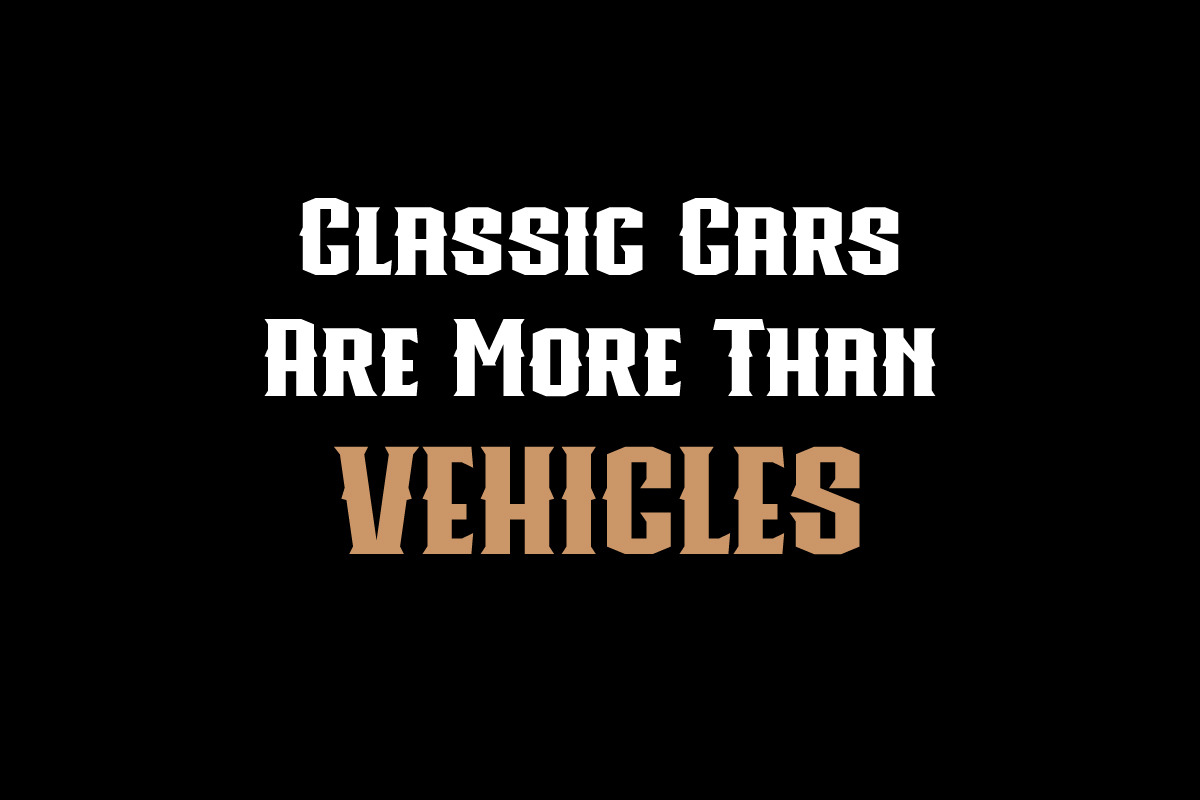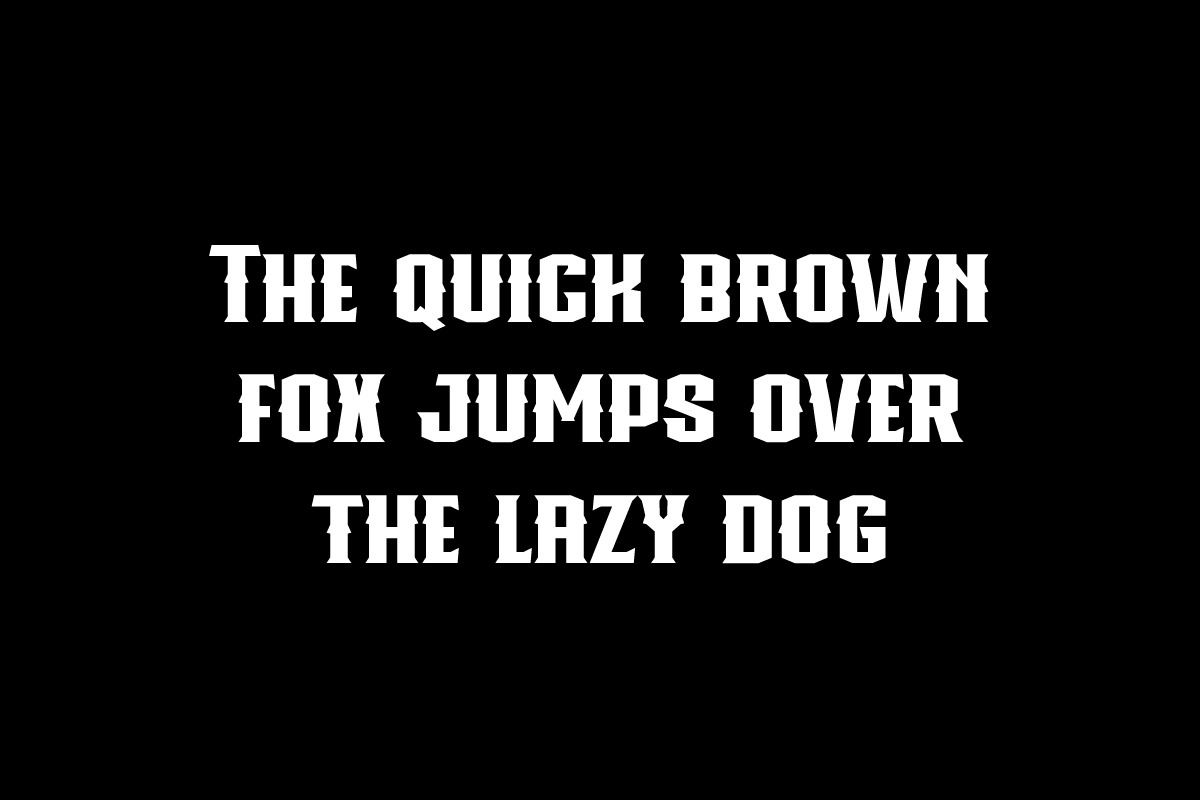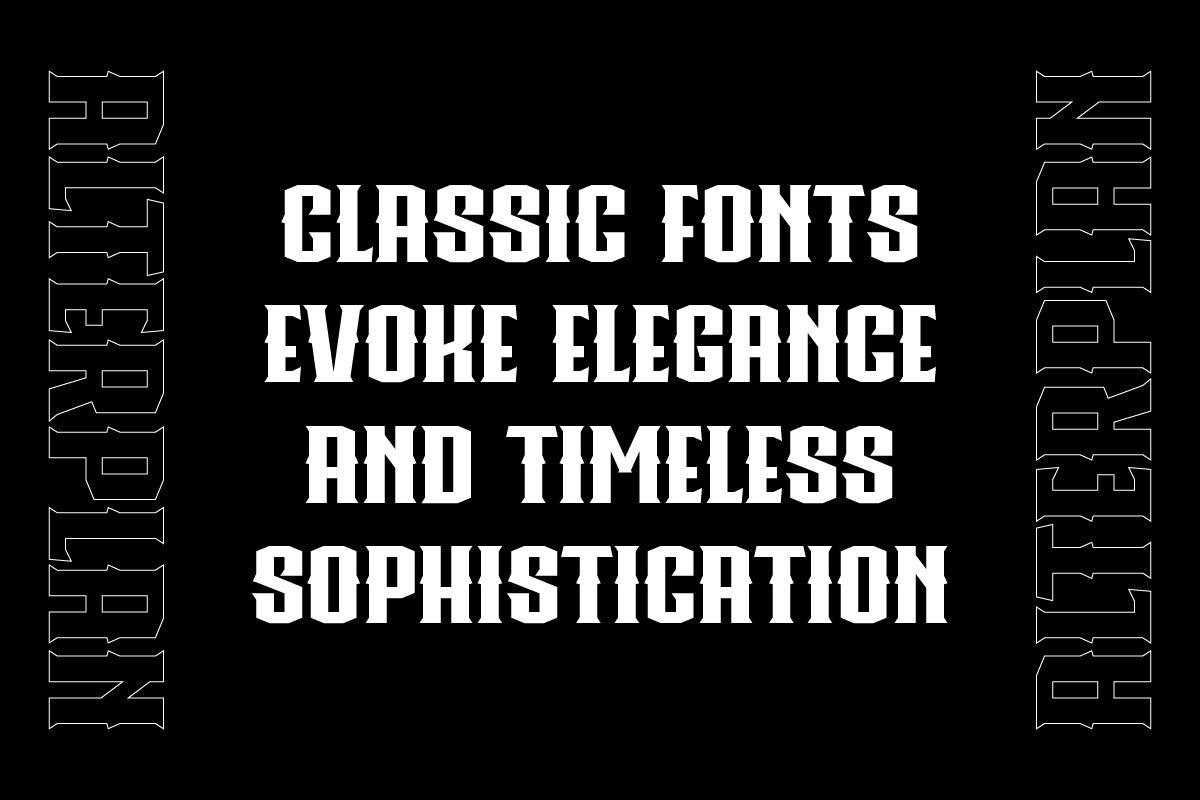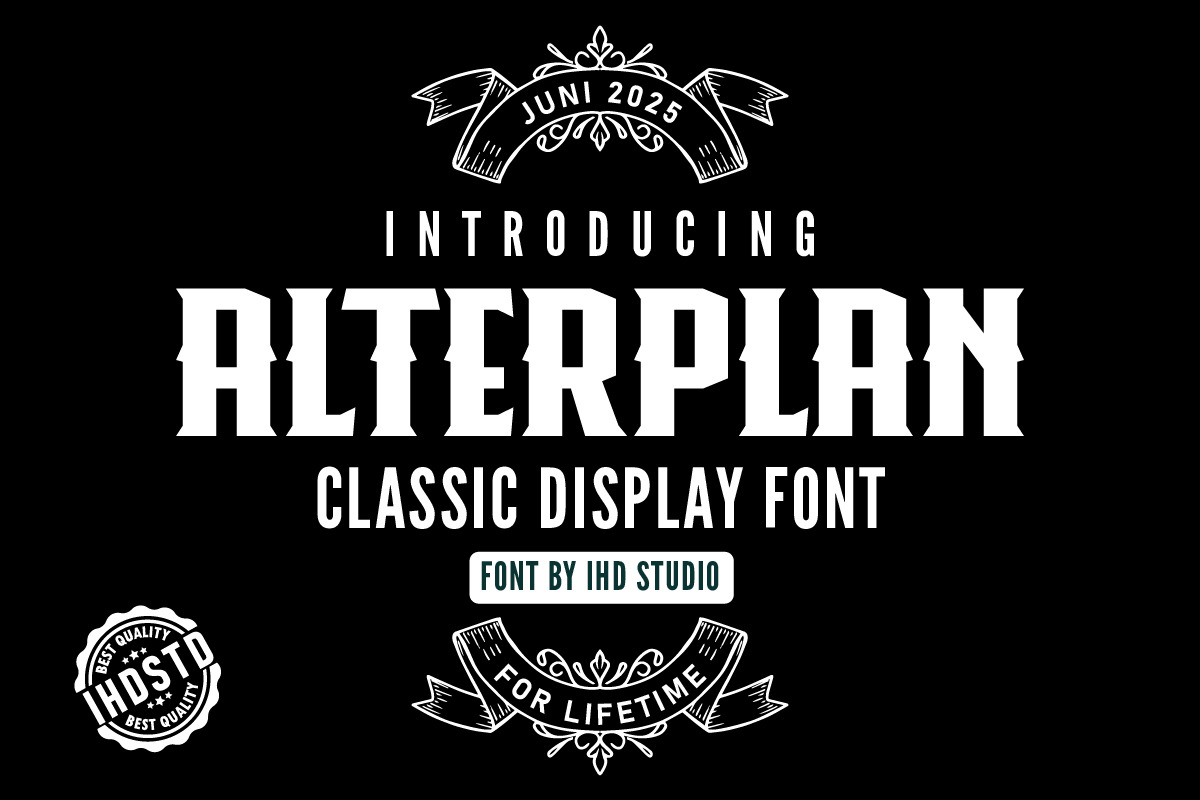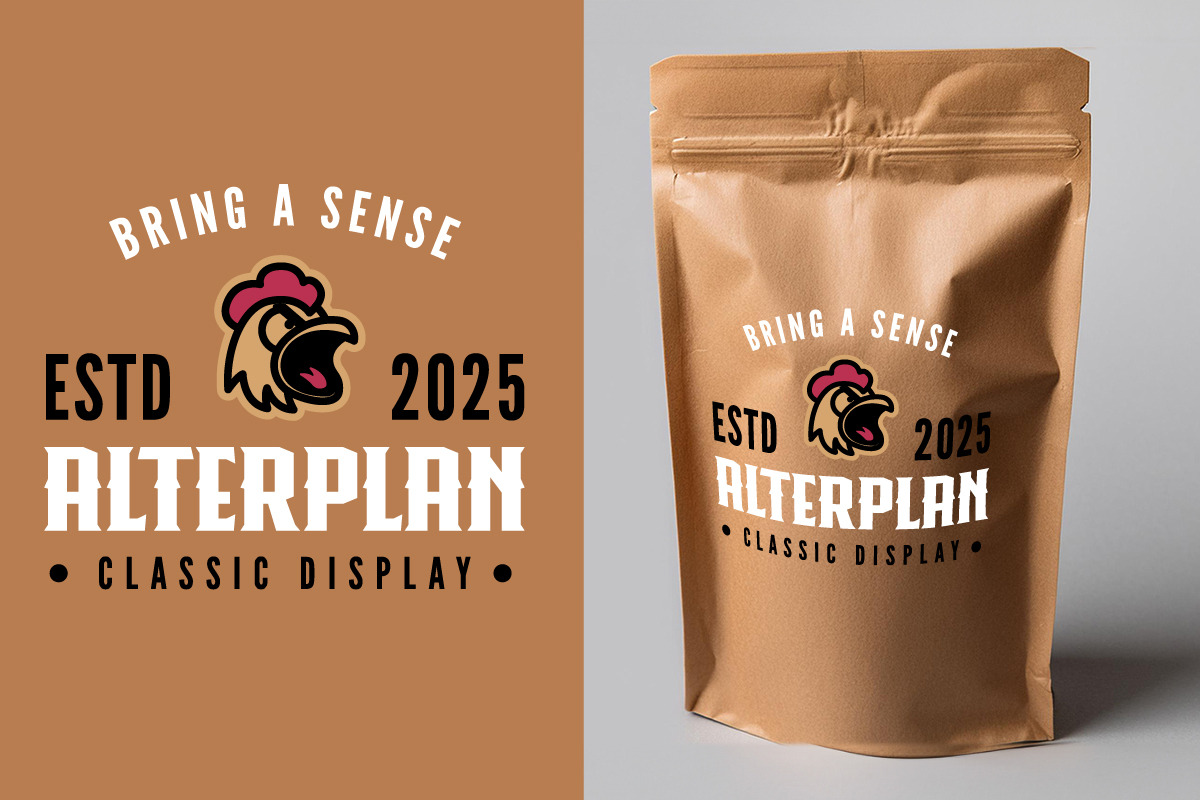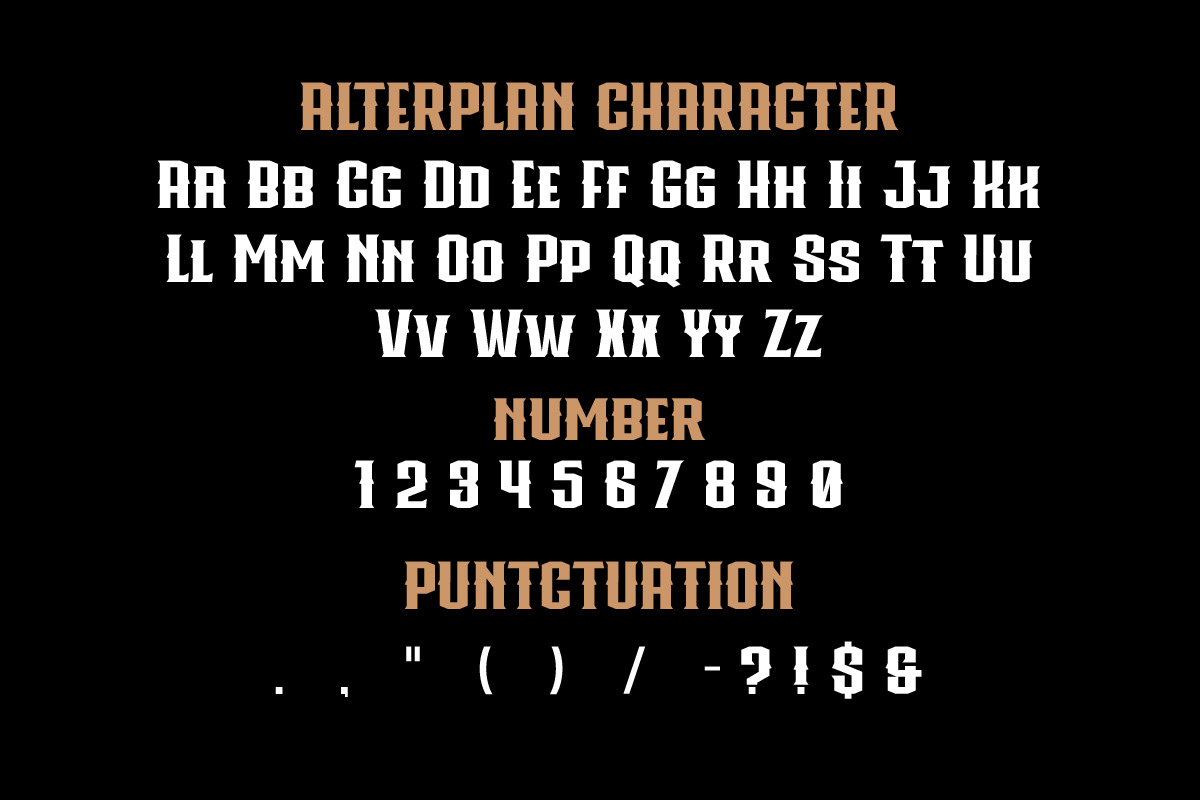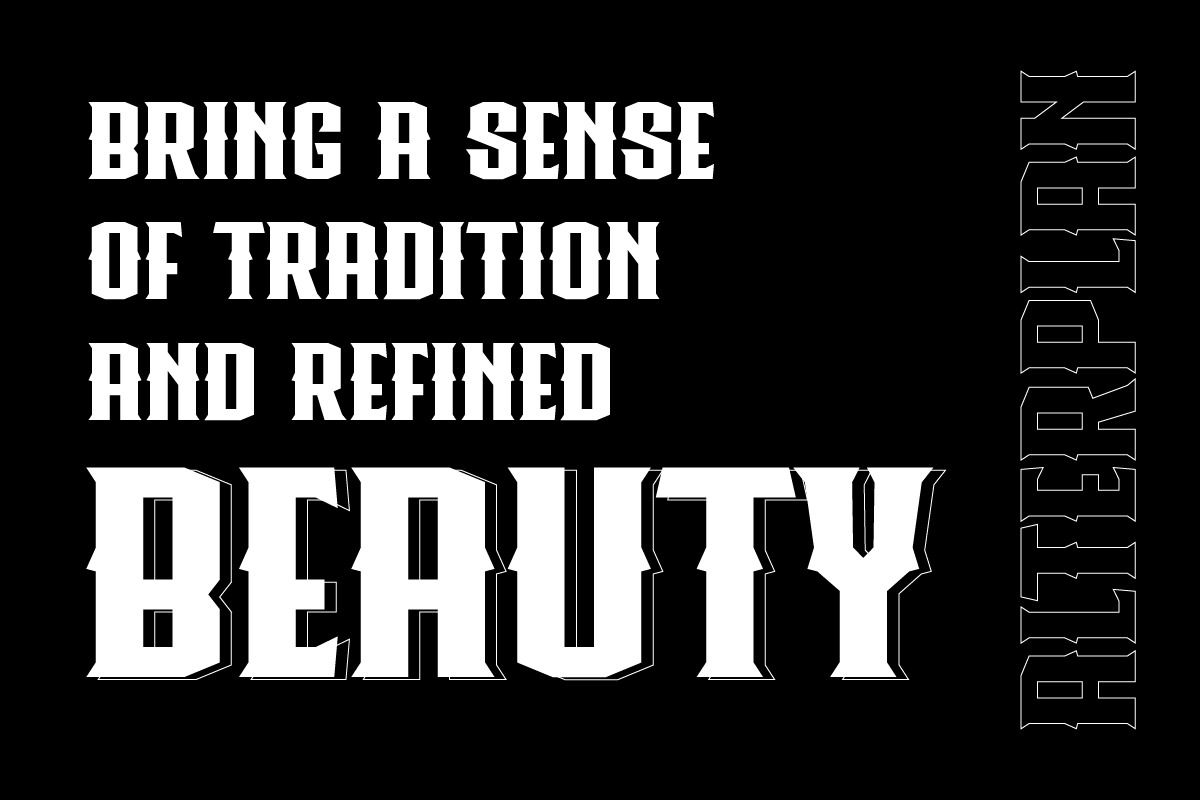
Alterplan Classic Display Font
Alterplan Classic Display Font is our new item suitable for your Posters.
Great for Logo, Poster, Sticker, Jerseys, Invitation Card, Brochure, etc.